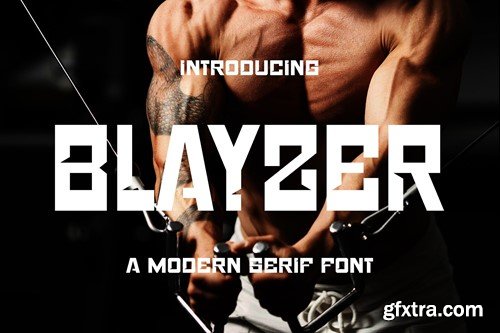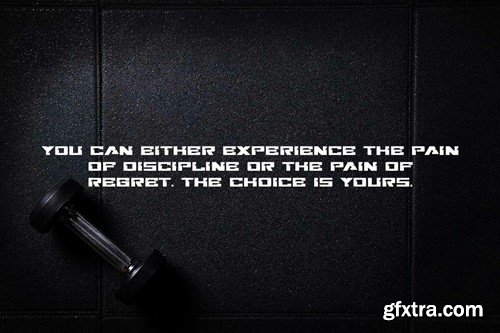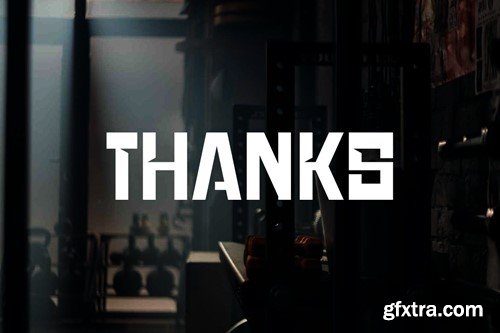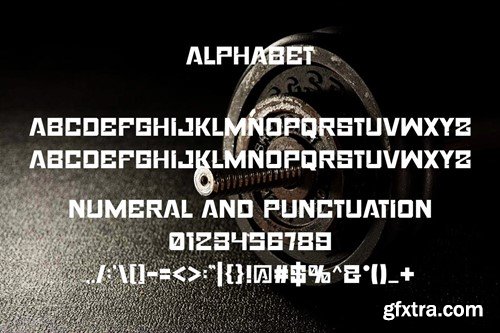
Blayzer Font
Proudly present our new product Blayzer Font is a modern and authentic font. Perfect for both professional and branding needs of a product. This font is suitable for any branding project like quotes, logo, blog header, poster, banding, letter, invitation, stationery, etc... Designed as a versatile and flexible that can be used on a range of projects and mediums. outstanding in a wide range of contexts. Availlable otf ttf Uppercase If you have any queries, questions or issues please don't hesitate to contact us direct. Display and cover image Not include